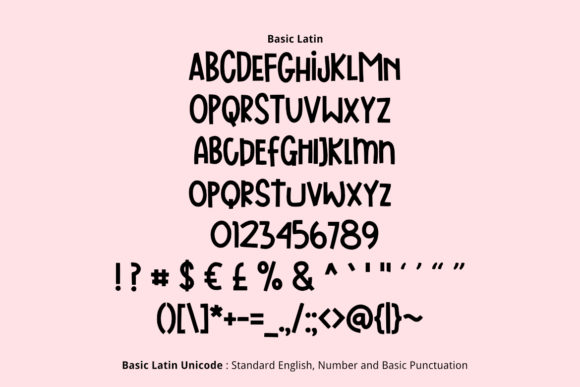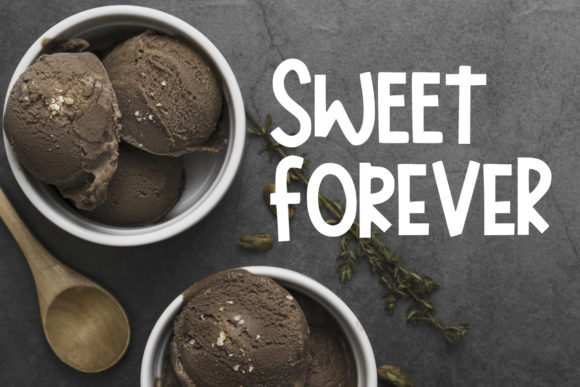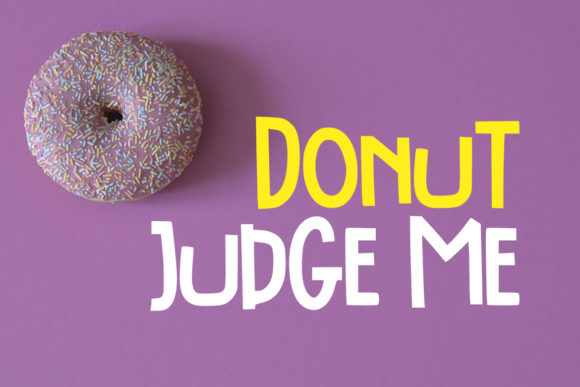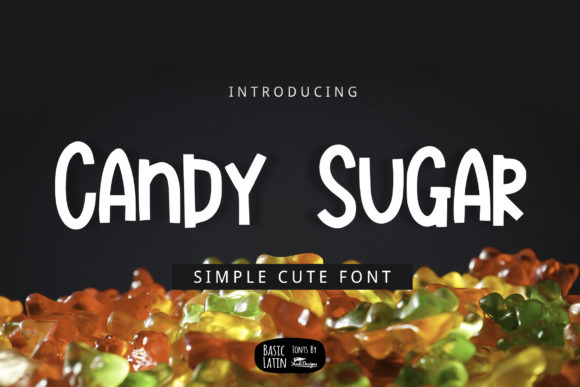
Candy Sugar Font: The Sweetest Addition to Your Design Collection
Are you tired of using the same old fonts in your designs? Look no further than the Candy Sugar Font, a thick lettered, bold yet playful display font that’s sure to make your projects stand out. With its unique and interesting style, this font is quickly becoming a top choice among designers and crafters.
What Makes Candy Sugar Font So Special?
The Candy Sugar Font is a one-of-a-kind display font that’s perfect for adding a touch of sweetness to your designs. Its bold and playful style makes it ideal for use in a variety of projects, from party invitations and children’s book titles to branding and advertising materials. The font’s thick letters give it a sturdy and confident look that’s sure to grab attention.
Key Features of Candy Sugar Font
- Unique and Playful Style: The Candy Sugar Font has a distinctive and whimsical style that’s perfect for adding a touch of fun to your designs.
- Bold and Thick Letters: The font’s thick letters make it easy to read and give it a confident look that’s sure to stand out.
- Display Font: The Candy Sugar Font is specifically designed as a display font, making it perfect for use in titles, headings, and other prominent text elements.
The Candy Sugar Font is a versatile font that’s perfect for use in a variety of design projects. Whether you’re a professional designer or a crafter looking for a unique font to use in your handmade projects, this font is sure to become a favorite. Here are just a few ways you can use the Candy Sugar Font:
- Party Invitations: Use the Candy Sugar Font to create fun and playful party invitations that are sure to get your guests excited.
- Children’s Book Titles: The font’s playful style makes it perfect for use in children’s book titles and other kid-friendly projects.
- Branding and Advertising: The Candy Sugar Font’s bold and confident style makes it ideal for use in branding and advertising materials, such as logos, billboards, and magazine ads.
- Handmade Projects: Crafters can use the Candy Sugar Font to add a personal touch to their handmade projects, such as scrapbook pages, cards, and other paper crafts.
Why Choose Candy Sugar Font?
With so many fonts to choose from, why should you choose the Candy Sugar Font? Here are just a few reasons:
- Unique Style: The Candy Sugar Font has a unique and distinctive style that’s sure to make your designs stand out.
- High-Quality Design: The font is carefully designed to ensure that it’s easy to read and looks great in a variety of contexts.
If you’re looking for a unique and playful font to add to your design collection, look no further than the Candy Sugar Font. With its bold and confident style, this font is perfect for use in a variety of projects, from party invitations and children’s book titles to branding and advertising materials. Its ease of use and affordability make it a great choice for designers and crafters of all skill levels.